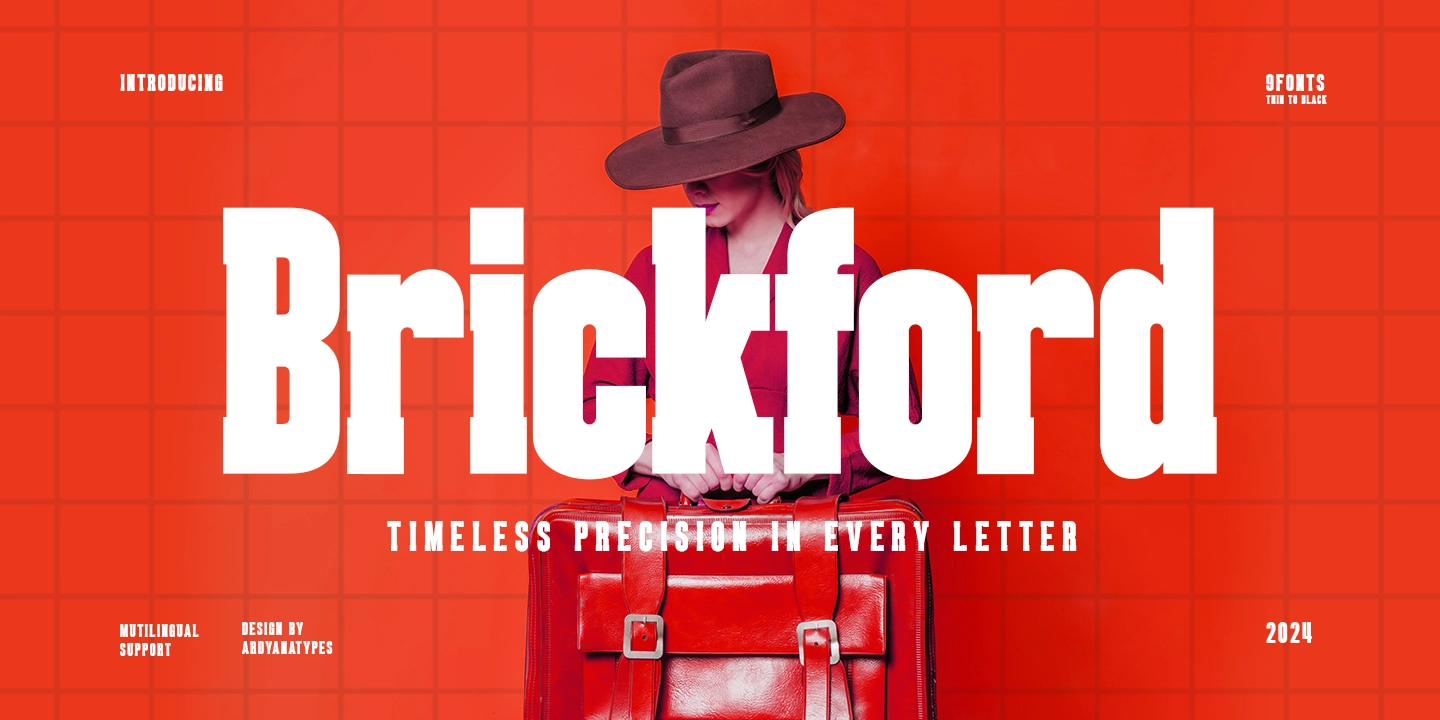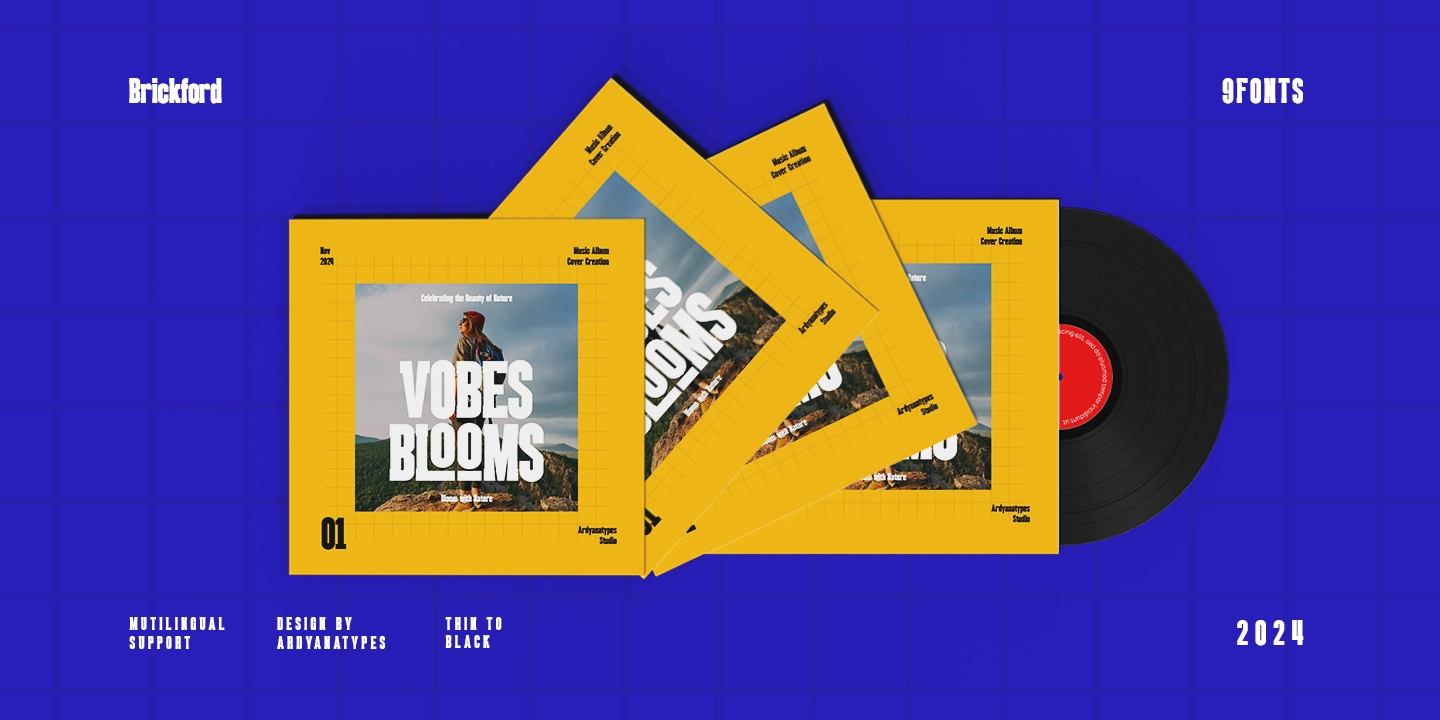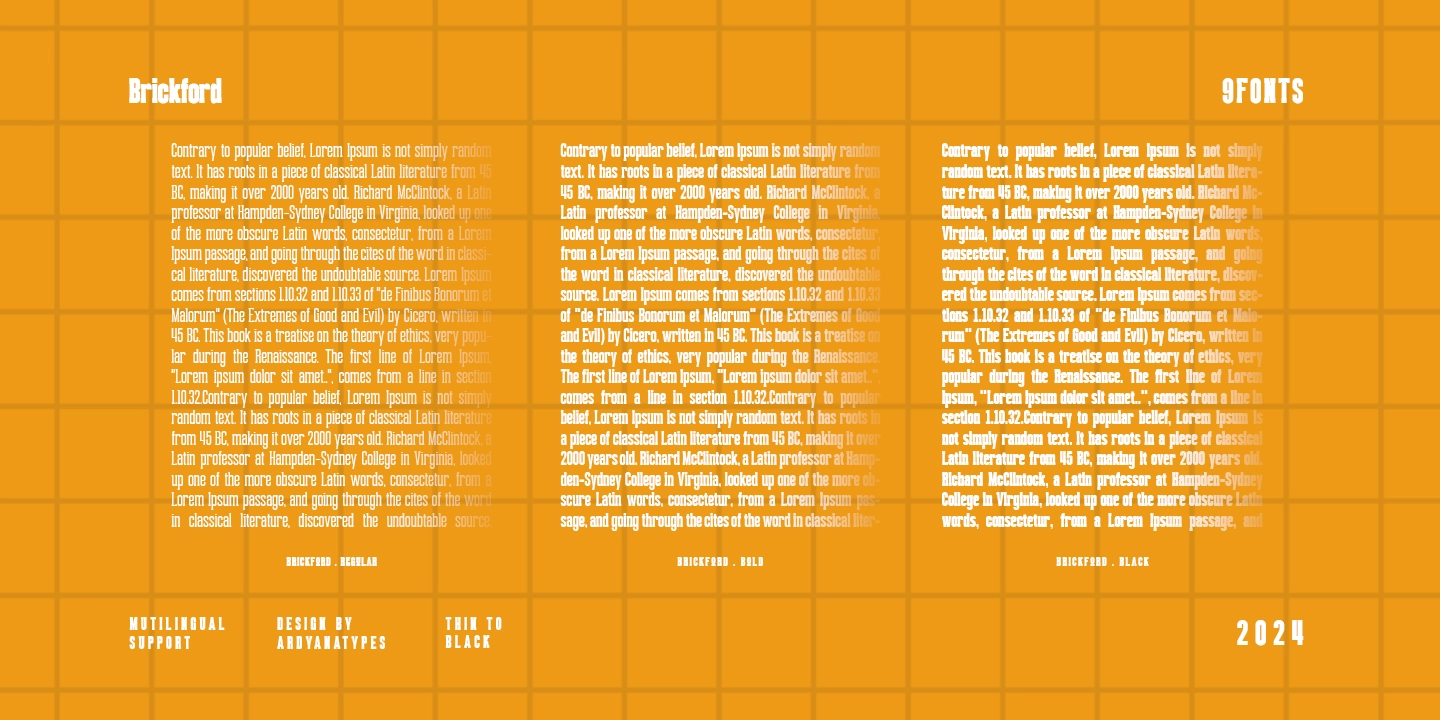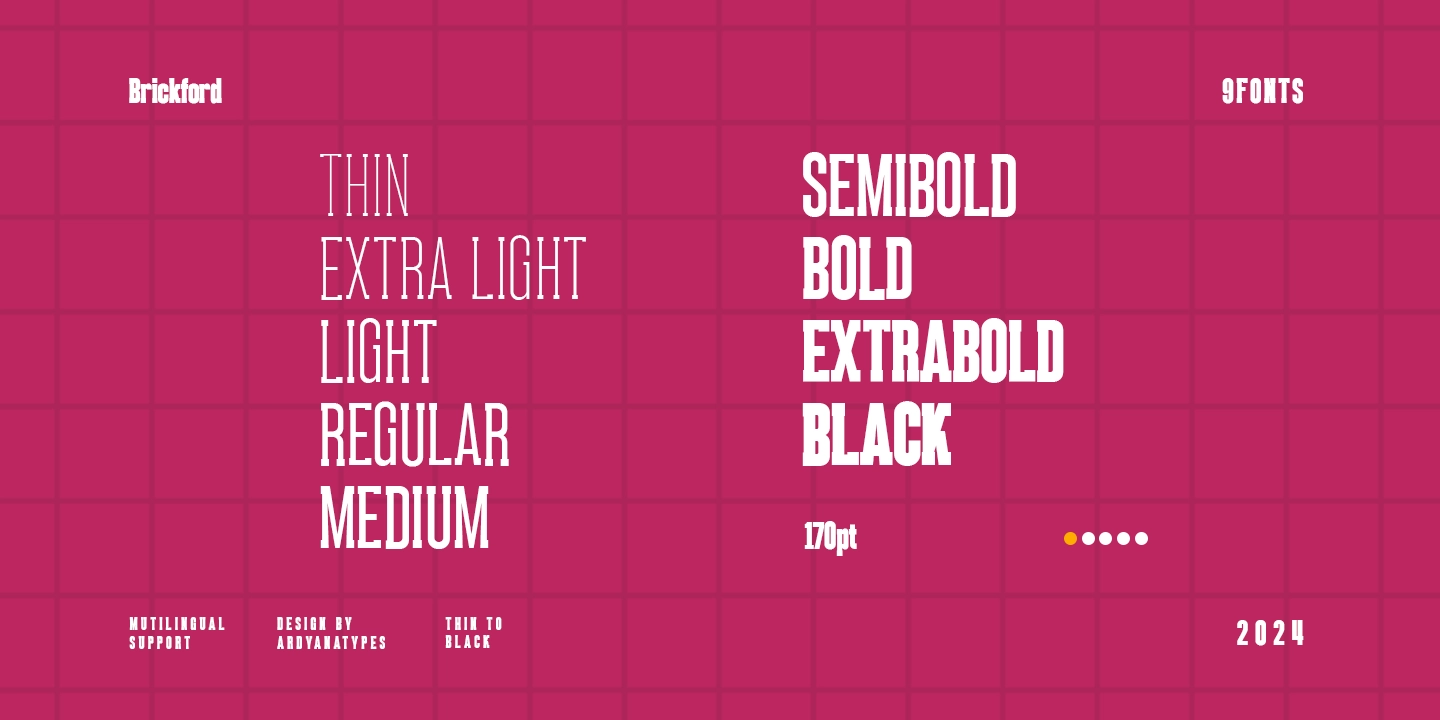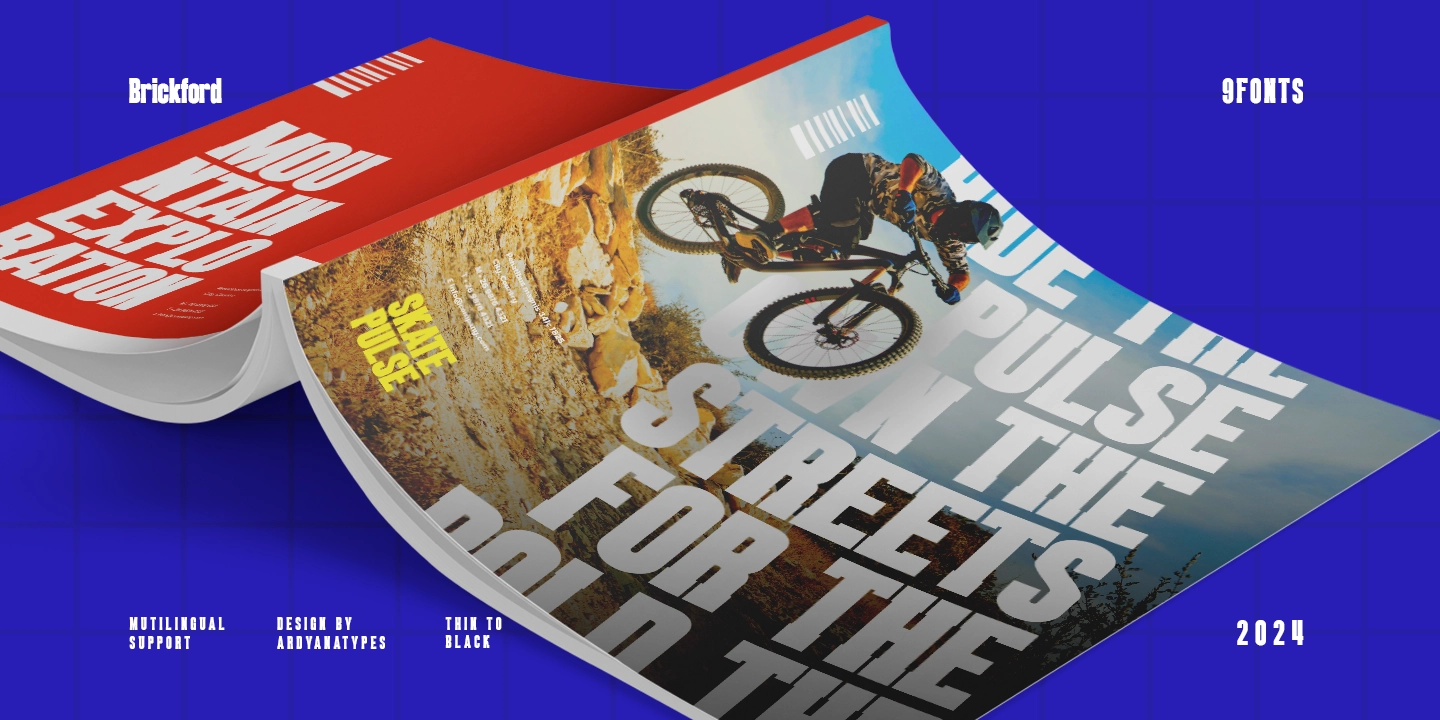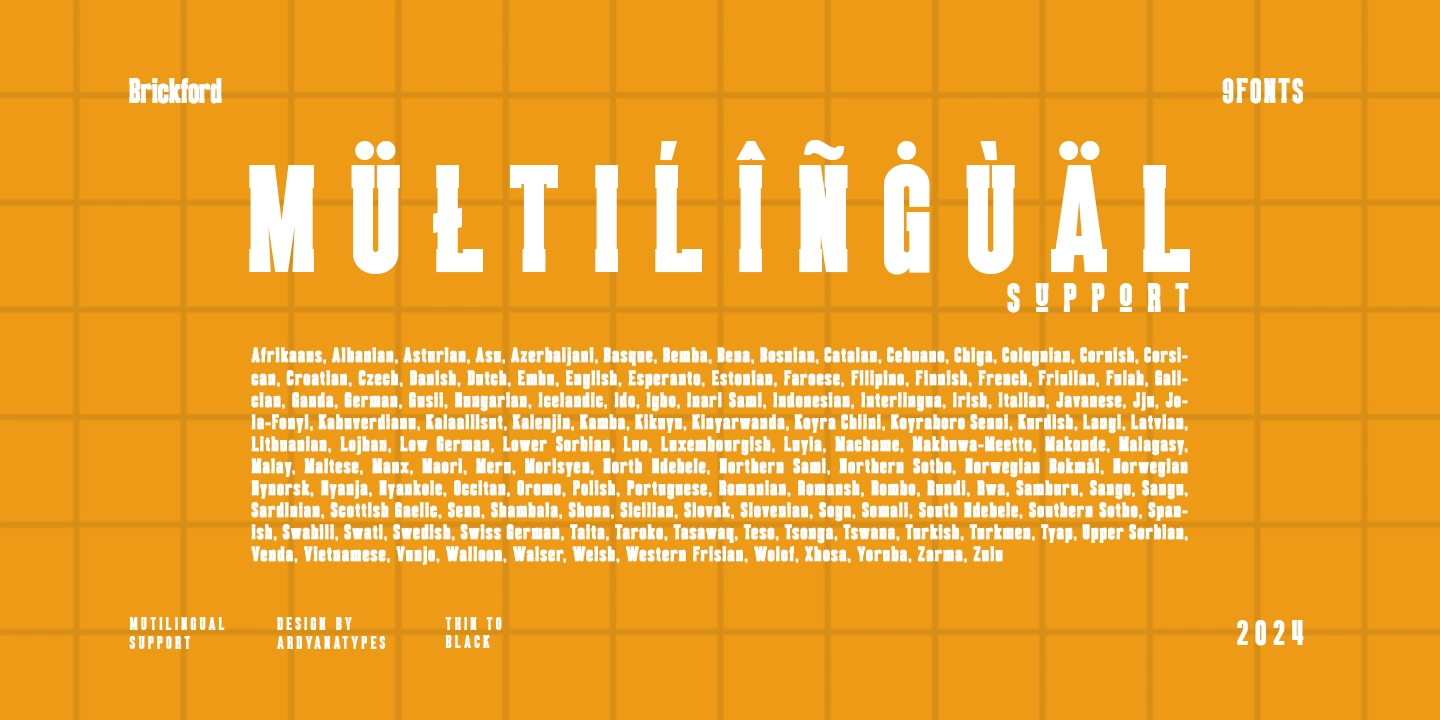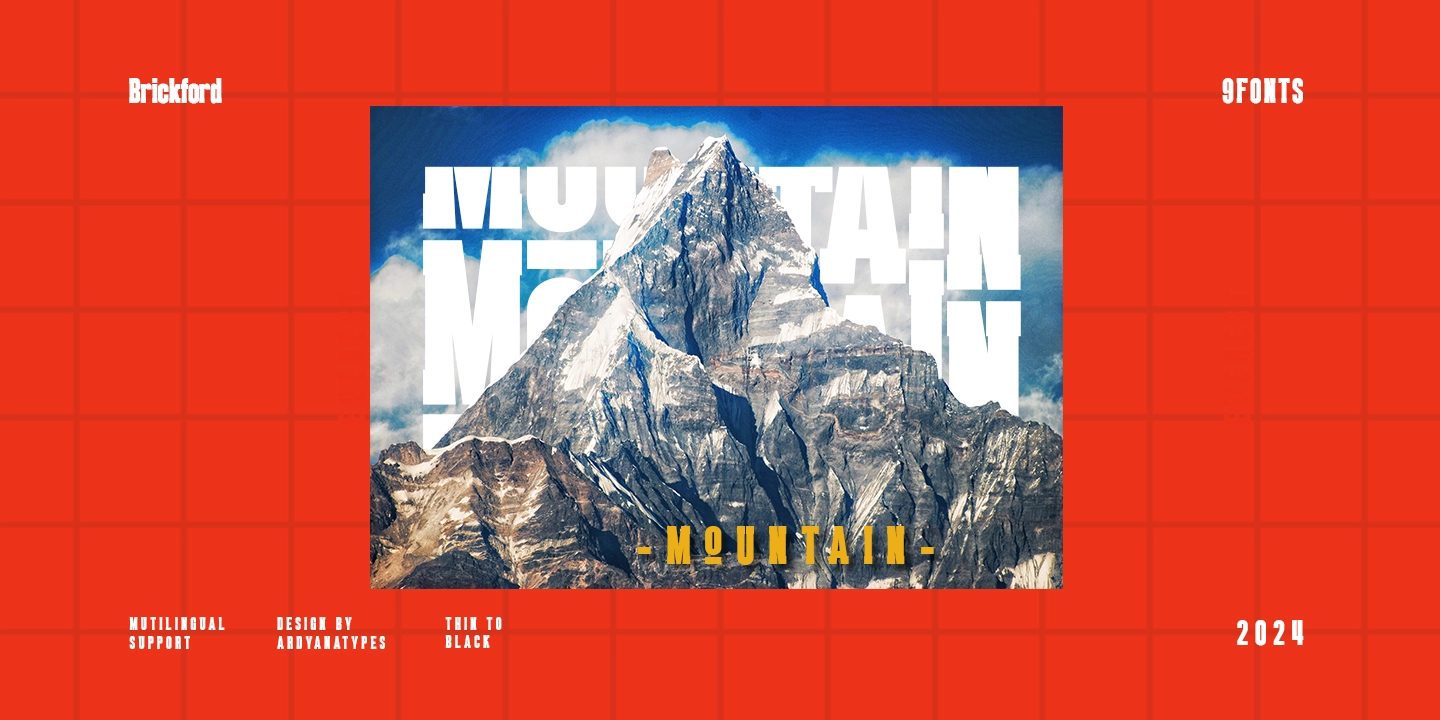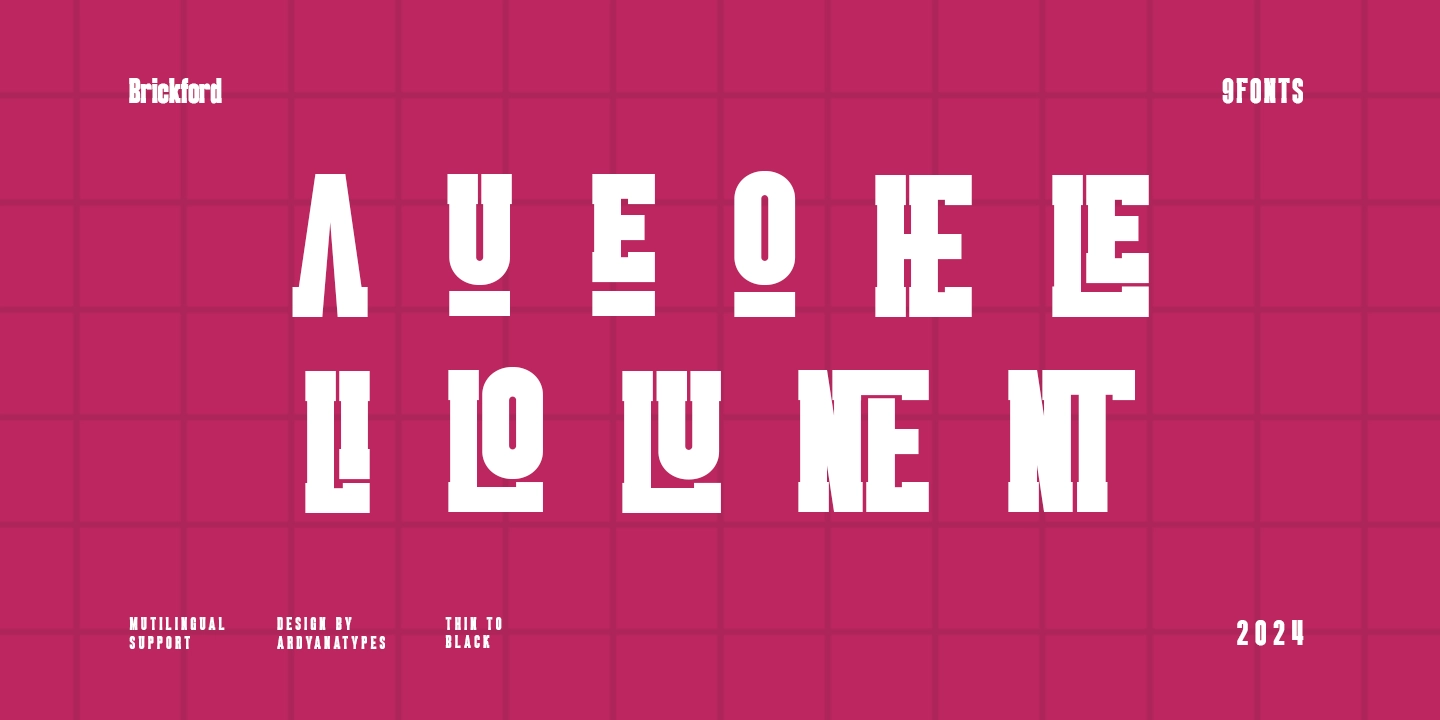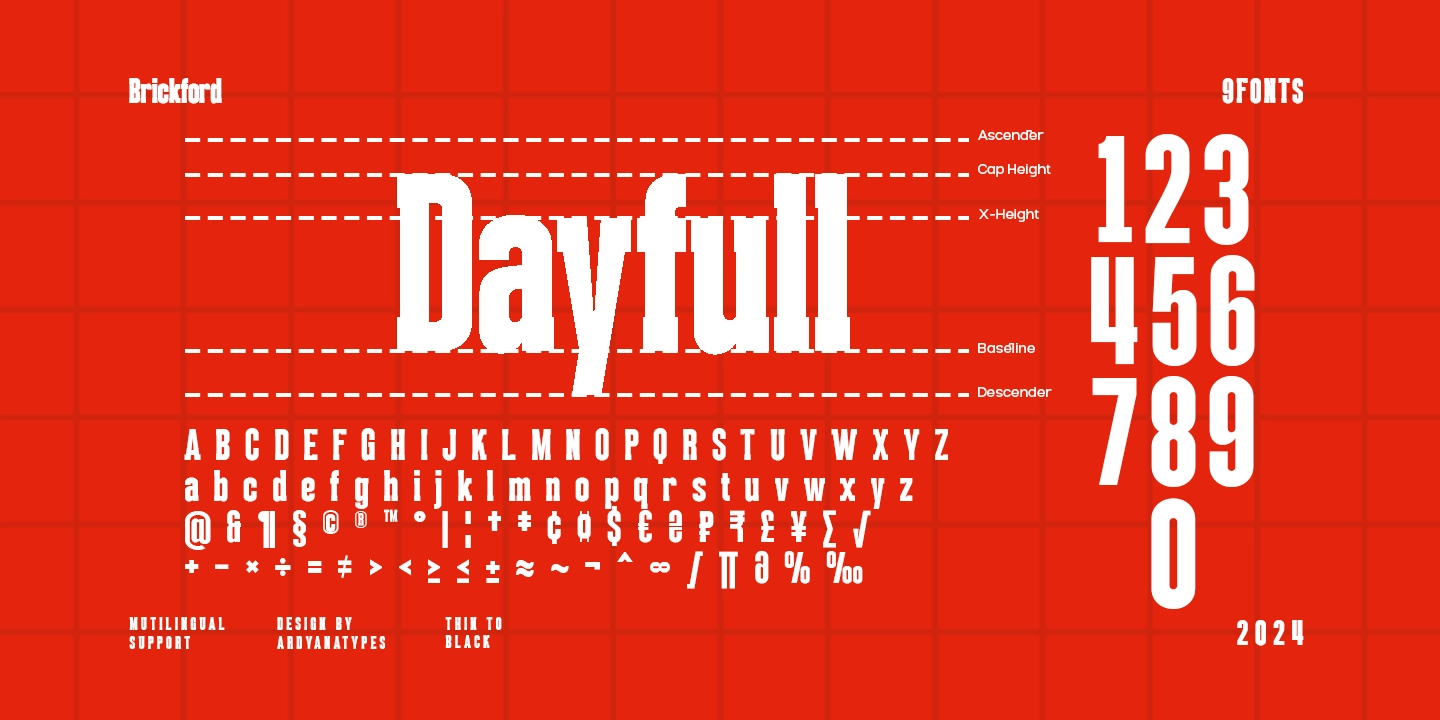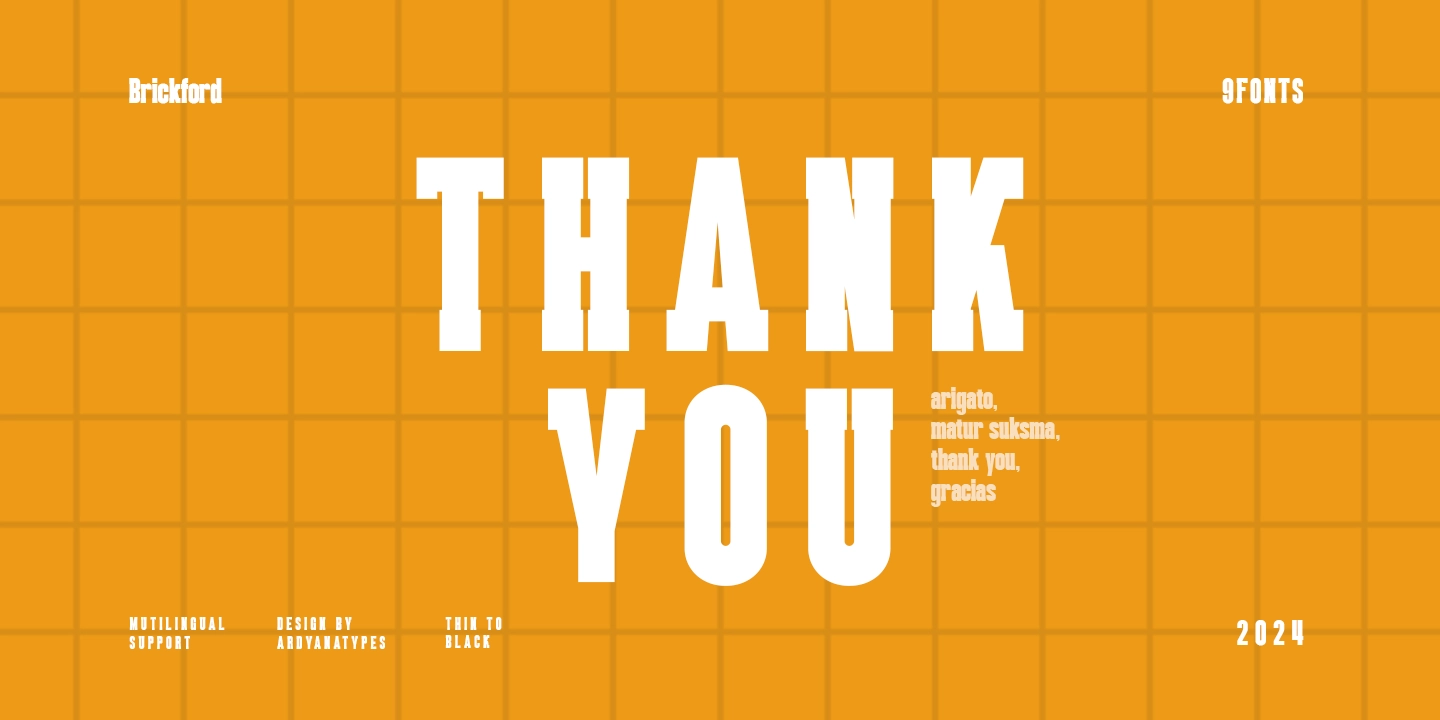
Brickford
9 Styles
Brickford is a modern sans-serif font designed to convey boldness, confidence, and professionalism. With its sturdy and precise design, Brickford offers exceptional versatility for designers seeking high-quality typographic solutions. Available in 9 distinctive styles, ranging from Thin to Black, this font seamlessly adapts to various design projects, from corporate branding and striking advertising posters to captivating editorial headlines.
One of Brickford’s standout features is its robust yet clean and minimalist appearance, making it suitable for a wide range of design themes, both modern and classic. Equipped with extensive multilingual support, Brickford ensures that every message is delivered clearly to a global audience. The precise typographic details make it the perfect choice for designers who value quality and aesthetics.
Brickford not only offers visual beauty but also technical reliability. This font is crafted to deliver a seamless design experience, whether for print or digital use. Whether you are a graphic designer, content creator, or entrepreneur looking to elevate your branding, Brickford is the ultimate choice to make your design stand out.
Why Choose Brickford?
Versatile Styles: With 9 style options, Brickford provides unparalleled creative freedom for various design applications.
Bold and Modern Design: Perfect for logos, posters, product packaging, and social media.
Multilingual Support: Enables global communication without barriers.
Precise Typographic Details: Ensures a professional look that always captivates.
Brickford is the perfect fusion of modern aesthetics and functionality. It is a font designed to leave a strong and lasting impression on every design project you undertake. Don’t miss the opportunity to make your designs stand out with Brickford, a font that inspires creativity and innovation.